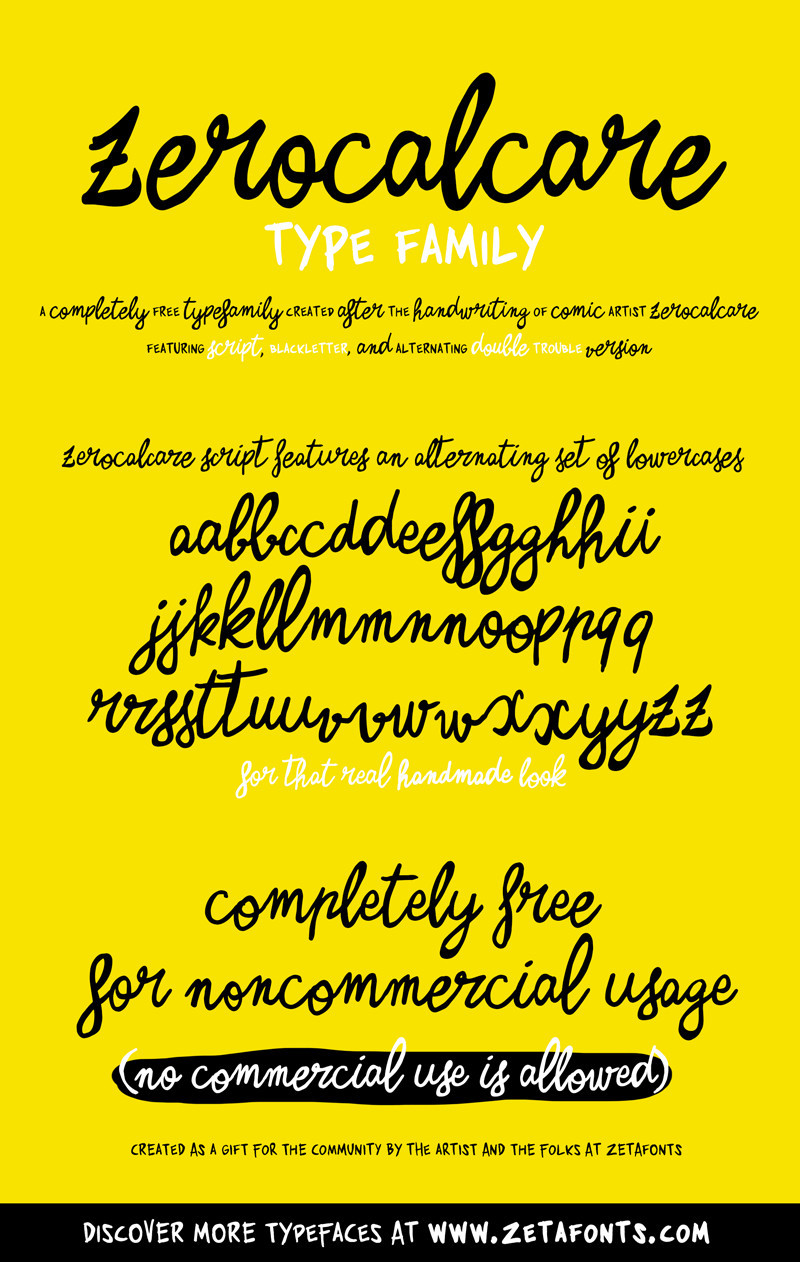
Zerocalcare Script Font
Zerocalcare is a typeface family created for the branding of Lucca Comics & Games Festival 2016. It’s based on the digitised handwriting of italian comic artist Zerocalcare, and it uses open type substitutions to mimick the flow of real handwriting.